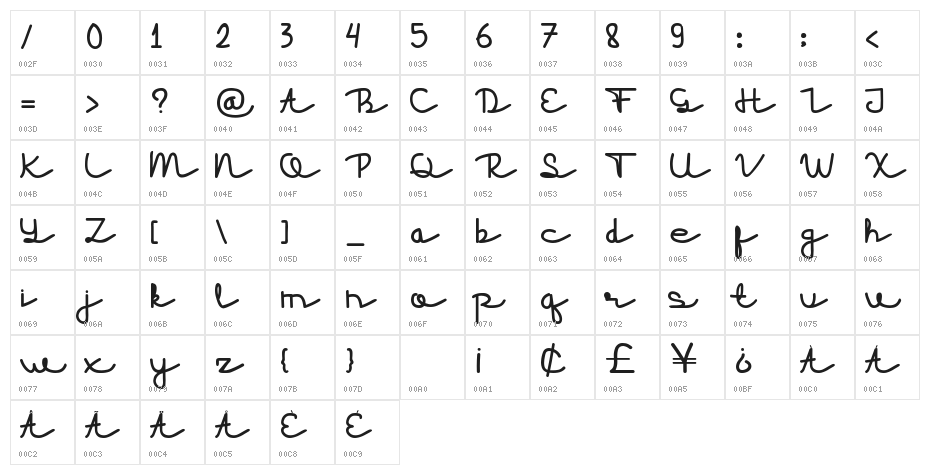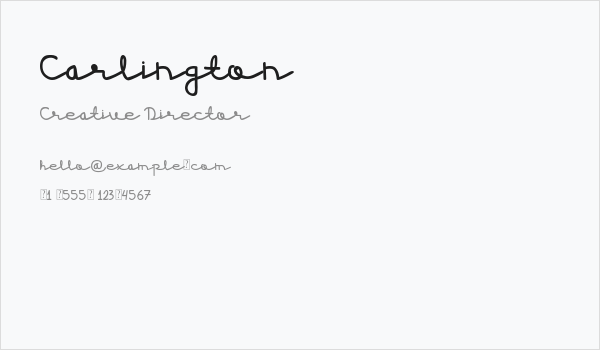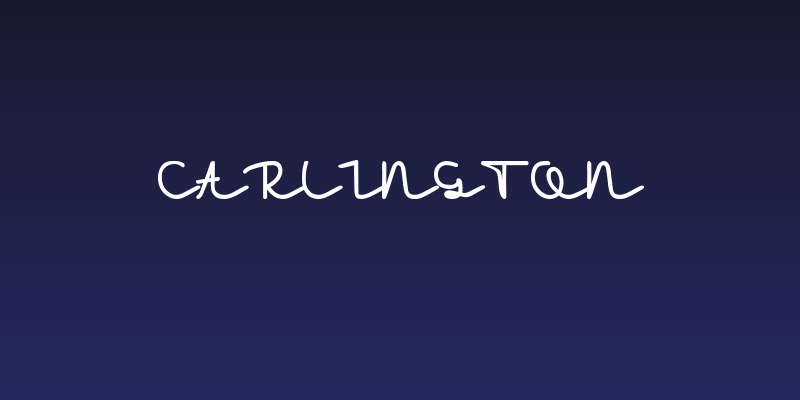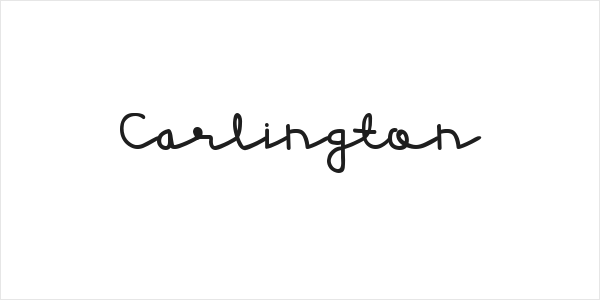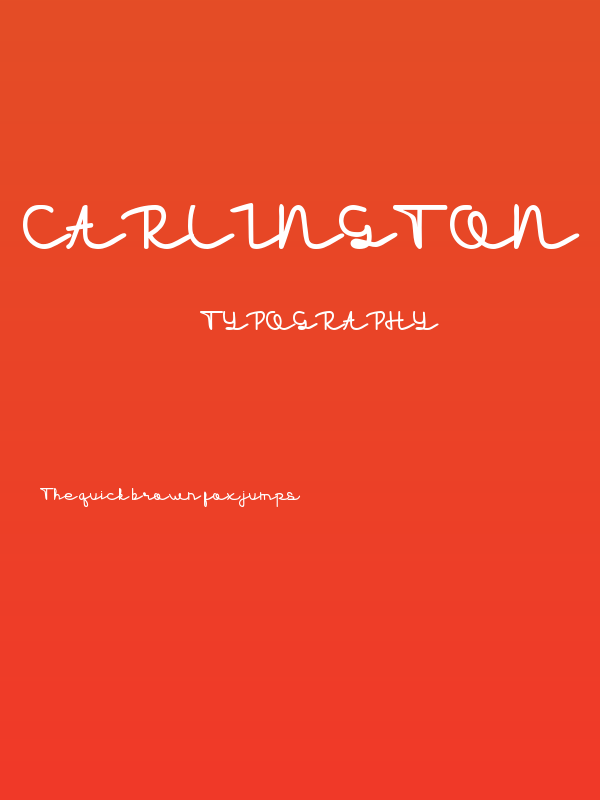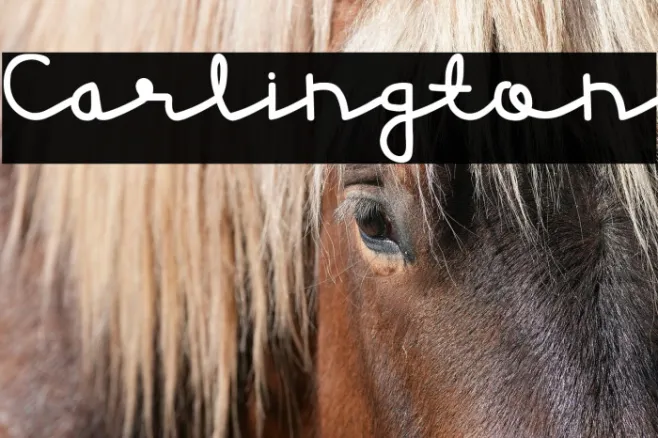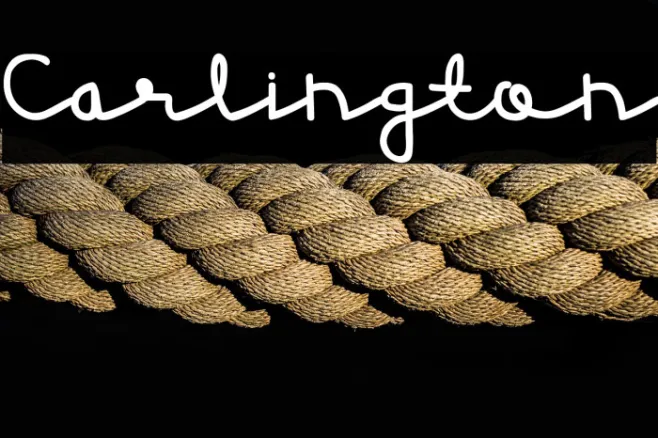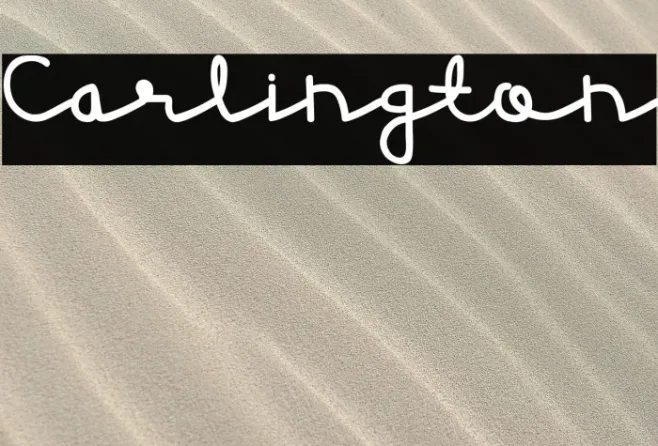
Carlington Font
Carlington Description
This font exudes a playful and casual handwritten style, characterized by its smooth, flowing lines and slightly irregular strokes that mimic natural handwriting. The uppercase letters maintain a consistent height, while the lowercase letters exhibit a charming variability in their ascenders and descenders, adding to the font's informal appeal. The numerals are clear and legible, maintaining the same playful style as the letters. The overall look is friendly and approachable, making it suitable for a variety of creative projects.
| Use Case | Logos, Headlines, Informal Text |